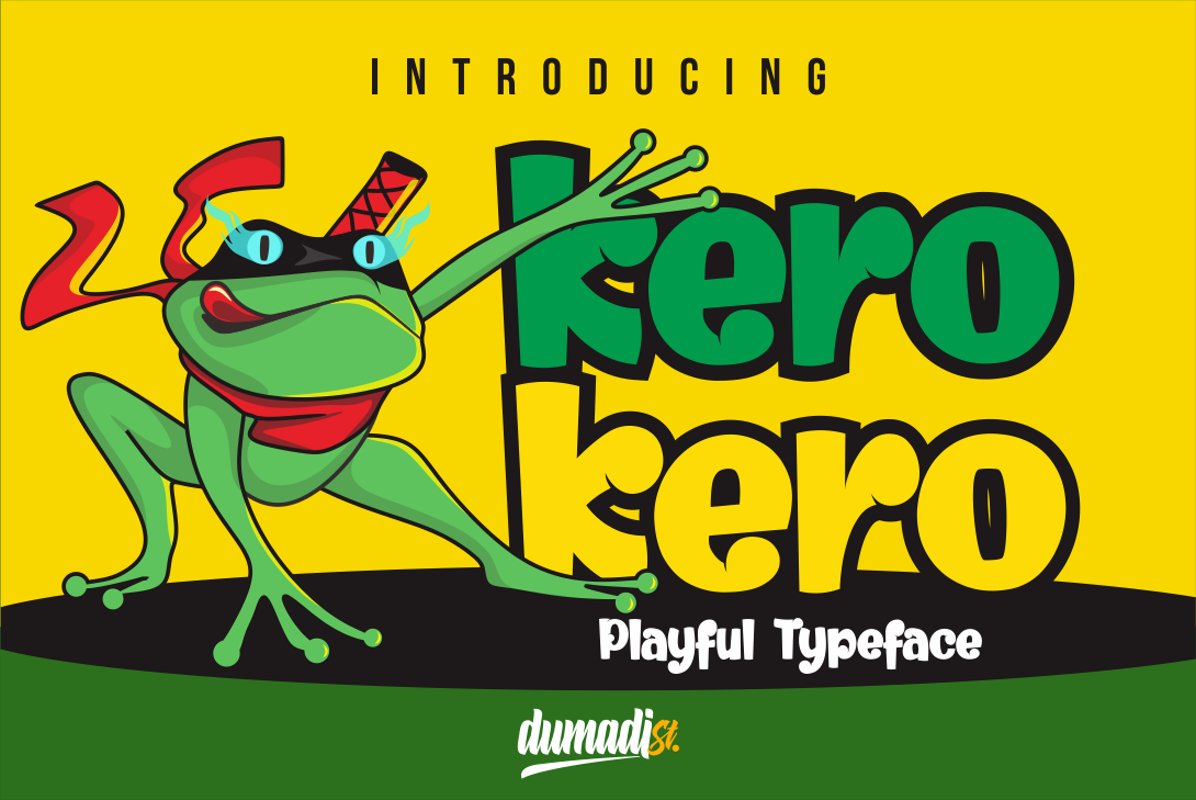
Kero kero
kero kero is typography with funny frog characters. Collaborating with this font with children's clothing designs will create extraordinary designs. This font can also be used for branding, products, books, and other designs.